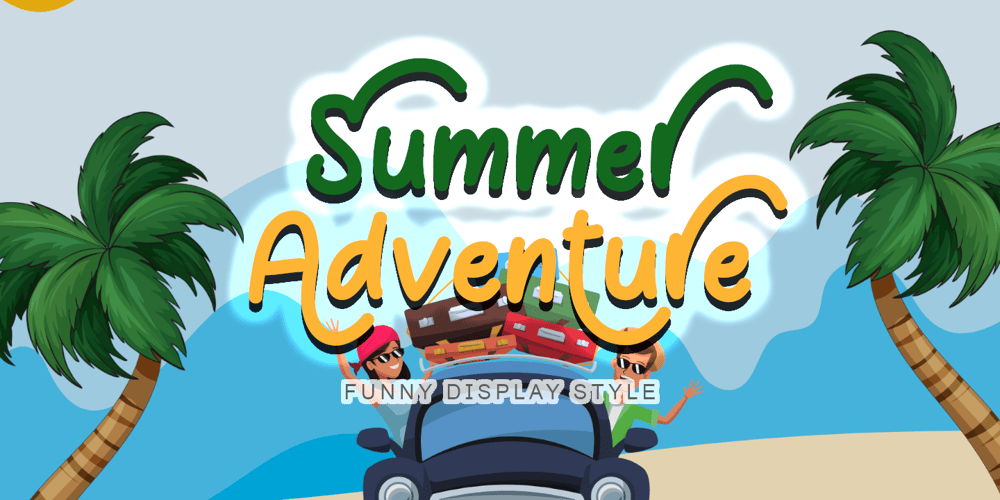
Summer Adventure Font Family was designed by Isroni Yoga Prasetya and published by Yoga Letter. Summer Adventure contains 1 styles and family package options. “Summer Adventure” is a unique and elegant display font. This font is equipped with uppercase, lowercase, numerals, punctuations and multilingual support. Very suitable for banners, branding, logos, summer, vacation, holidays, camping, Christmas, back to school, father’s day, teachers and others.